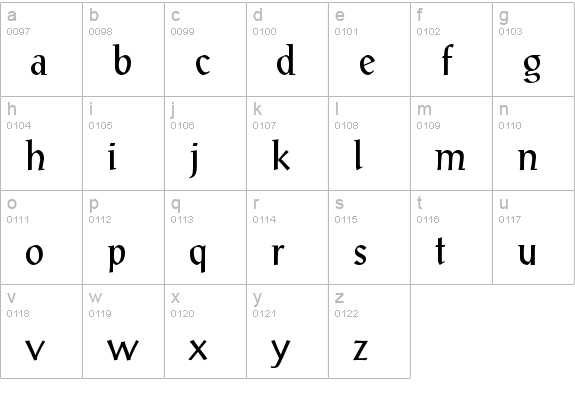
Antiqua SSi Font Details
Antiqua SSi font is a timeless typeface that exudes elegance and sophistication. Its classic serifs and graceful curves give any project a touch of vintage charm. The versatility of Antiqua SSi font makes it suitable for a wide range of design applications, from branding to editorial design. What sets Antiqua SSi font apart is not just its aesthetic appeal, but also the fact that it is available for free download at FontsMarket.com. This means that designers and creatives can easily access this beautiful font without any cost, making it a valuable addition to any font library. Whether you're working on a personal project or a client's design, Antiqua SSi font is a reliable choice that will elevate your work to new heights.